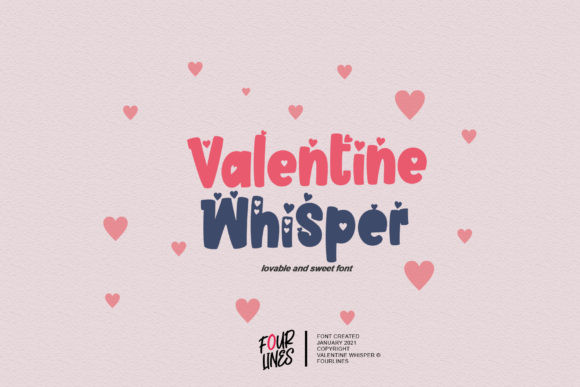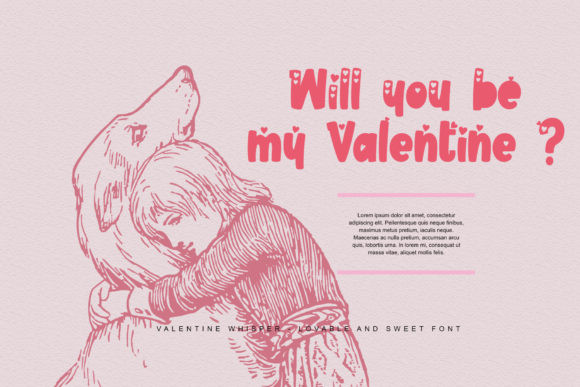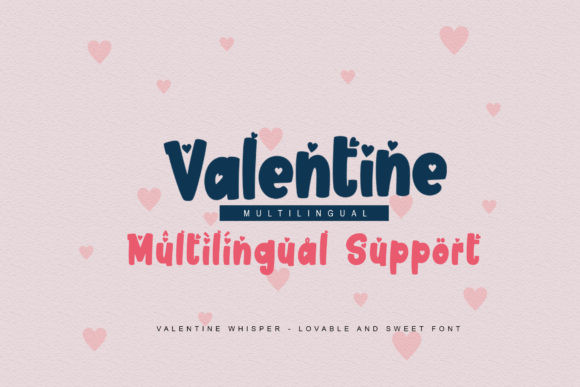
Valentine Whisper Font
Valentine Whisper FontValentine Whisper is a lovable and sweet display font. Add this display font to each of your creative ideas and notice how it makes them come alive!